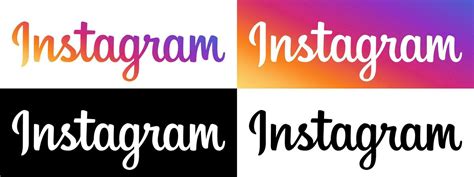
Incredible What Is The Font Style Of Instagram Logo In Graphic Design
Font Logo Instagram. The glyph and wordmark inspired this custom style that nods to our heritage. Looking for logo instagram fonts?